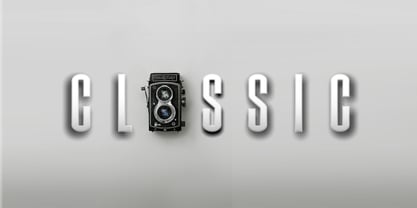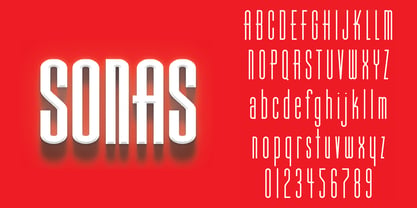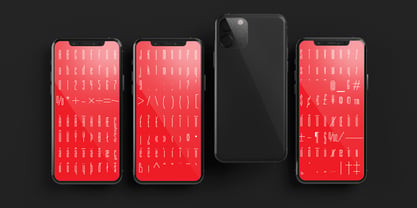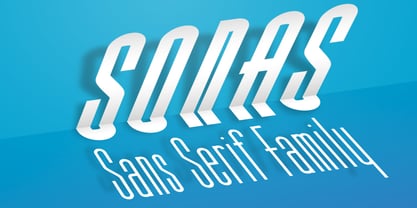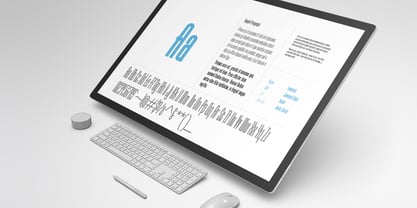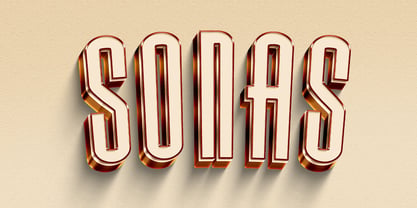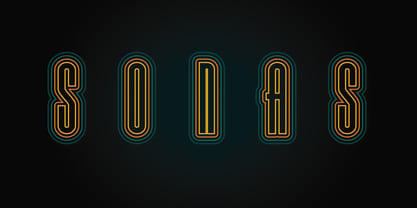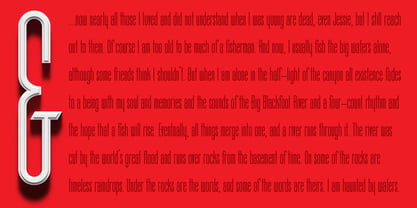
Sonas
Sonas, in Irish, means happiness which accurately describes this font’s personality. The foundation of this family comes from an early 20th Century font from a marketing type sample from which we expanded into a full character set for modern use. Sonas has a slim elegance and glamour that harkens back to broadway marquees and theater channel cut letters with bright bulbs shining from within. Sonas will be best suited for display and graphic implementation, although it can work well with certain typeset requirements.